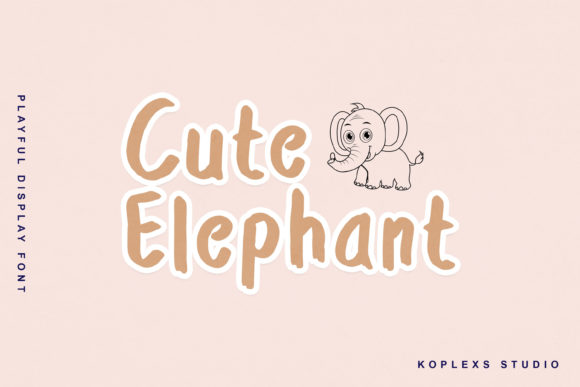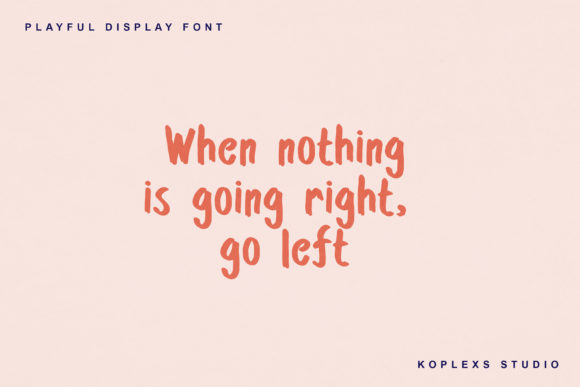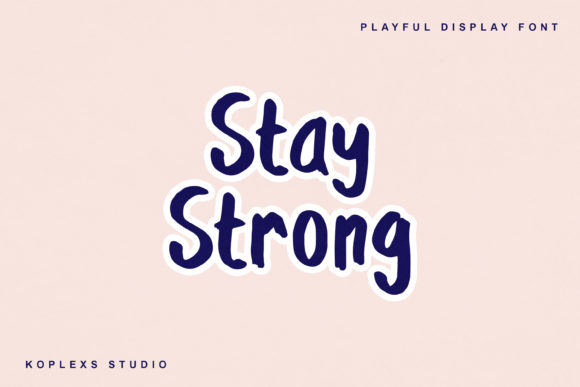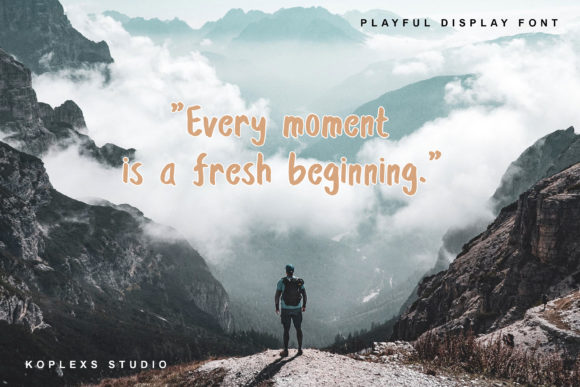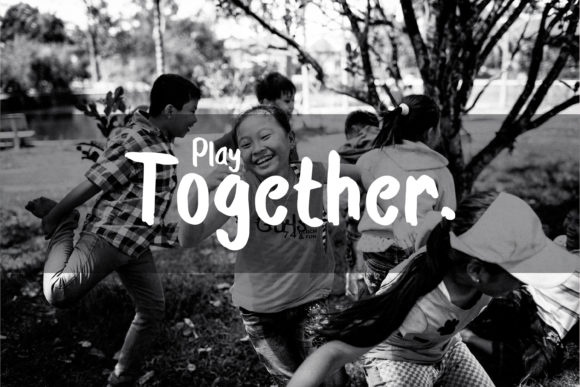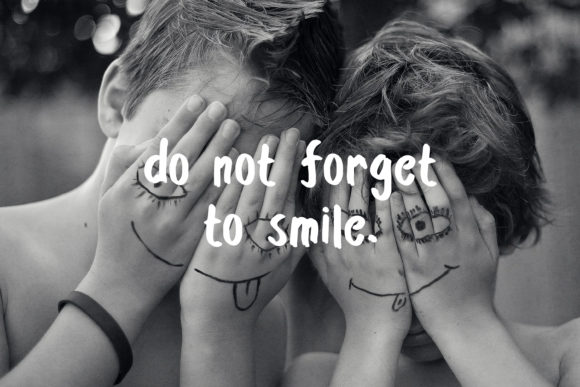
The Quickly Font
The Quickly is a playful, relaxed and realistic handwritten font. Add this neat paint brushed font to your favorite creations and notice how easily they stand out.